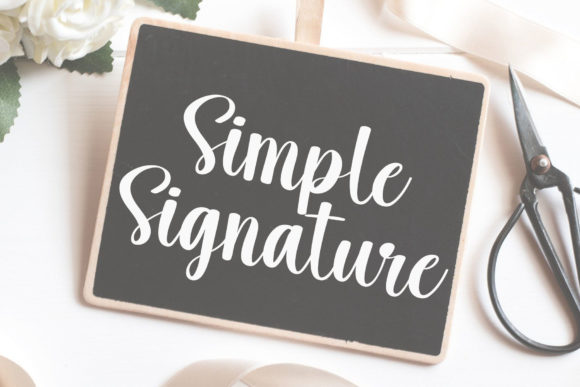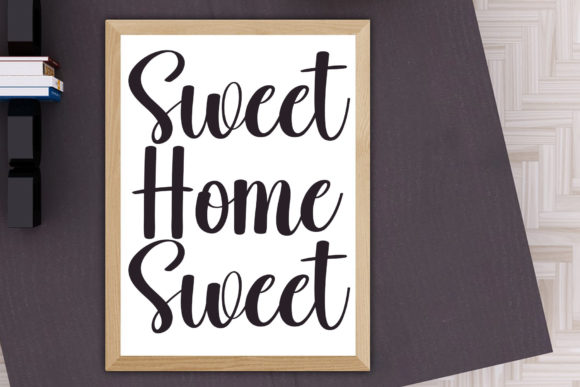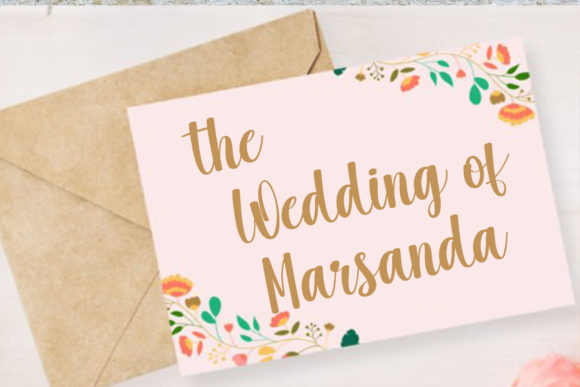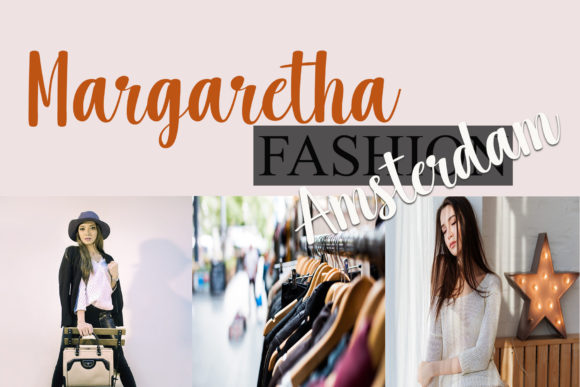
The Elegant Charm of Blackboard Font: A Designer’s Delight
I still remember the design project that made me fall in love with the Blackboard font. I was working on a branding campaign for a boutique stationery store, and I needed a font that would convey elegance, sophistication, and a touch of whimsy. After hours of scouring font libraries and trying out different combinations, I stumbled upon Blackboard – a delicate, elegant, and flowing handwritten font that stole my heart. ✨
So, what makes Blackboard font so special? Here are a few things I love:
- 💫 Beautifully balanced characters that exude elegance and sophistication
- ✅ Versatile and adaptable to a wide range of design projects, from stationery to digital platforms
- ✨ Delicate and flowing strokes that add a touch of whimsy and romance
- 🔍 OpenType features and glyphs that allow for creative experimentation and customization
Of course, no font is perfect, and Blackboard has a few quirks to watch out for:
- 🤔 Limited availability of certain characters and glyphs in some platforms or software
- ⚠️ May not be the best choice for very small font sizes or low-resolution designs
The Story Behind Blackboard Font
While the origins of Blackboard font are shrouded in mystery, it’s said to have been inspired by traditional blackboards and chalkboards found in classrooms and educational settings. The font’s designer aimed to capture the elegance and sophistication of handwritten text, while also evoking a sense of nostalgia and playfulness. 📚
| Font Name | Blackboard Font |
| What is the best use for Blackboard font? | Blackboard font is perfect for designs that require elegance, sophistication, and a touch of whimsy, such as stationery, branding, and digital platforms. |
| Is Blackboard font suitable for body text? | While Blackboard font is beautiful, it’s best used for headlines, titles, and short paragraphs. For longer body text, a more legible font may be more suitable. |
| Can I modify or customize Blackboard font? | While it’s possible to modify or customize Blackboard font, it’s recommended to use the font as intended to ensure optimal results. Experimenting with OpenType features and glyphs can help you achieve unique and creative effects. |